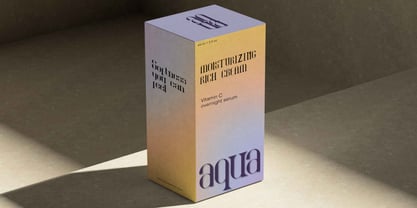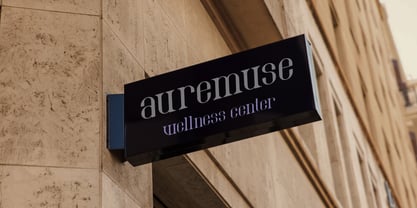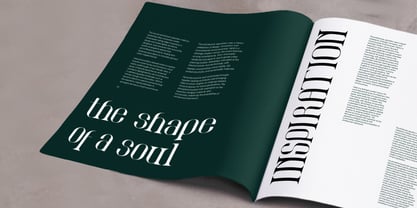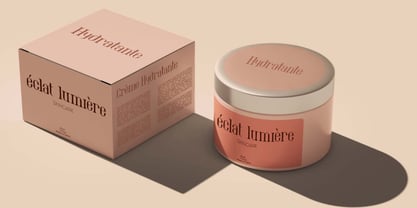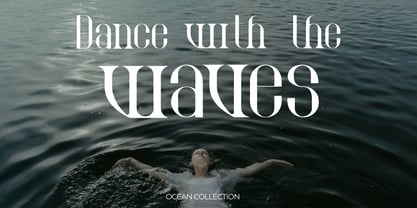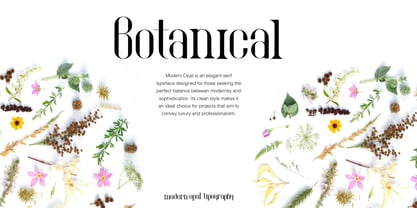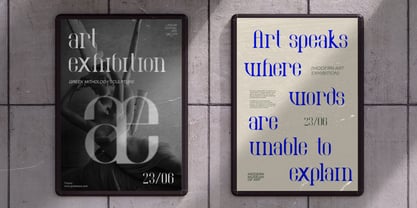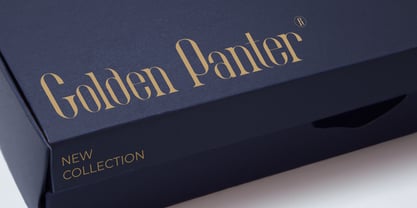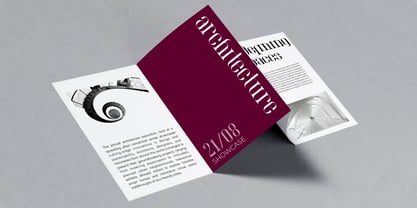
Modern Opal
by Creative Wave Studio
The Modern Opal Font Family was designed by Laura Albert Palou and published by Creative Wave Studio. Modern Opal contains 6 styles and family package options. More about this family
Modern Opal is an elegant serif typeface designed for those seeking the perfect balance between modernity and sophistication. Its clean style makes it an ideal choice for projects that aim to convey luxury and professionalism.
This type family excels in its flawless balance of sharp lines and intricate details. Featuring eight versatile styles ranging from delicate to bold weights, in both upright and italic versions, Modern Opal effortlessly adapts to the needs of any project. The typeface's stylized letterforms, paired with carefully calibrated contrast, imbue it with a unique and distinguished character. The italic styles introduce a natural flow that further elevates the inherent elegance of the typeface.
Perfect for high-end projects, Modern Opal shines in branding, editorial design, logos, packaging, magazine headlines, web design, and much more.
Modern Opal is not just a font; it’s a statement of style, poised to take your projects to the next level.